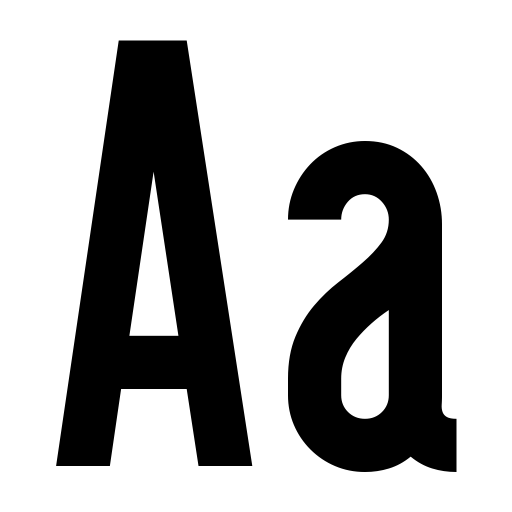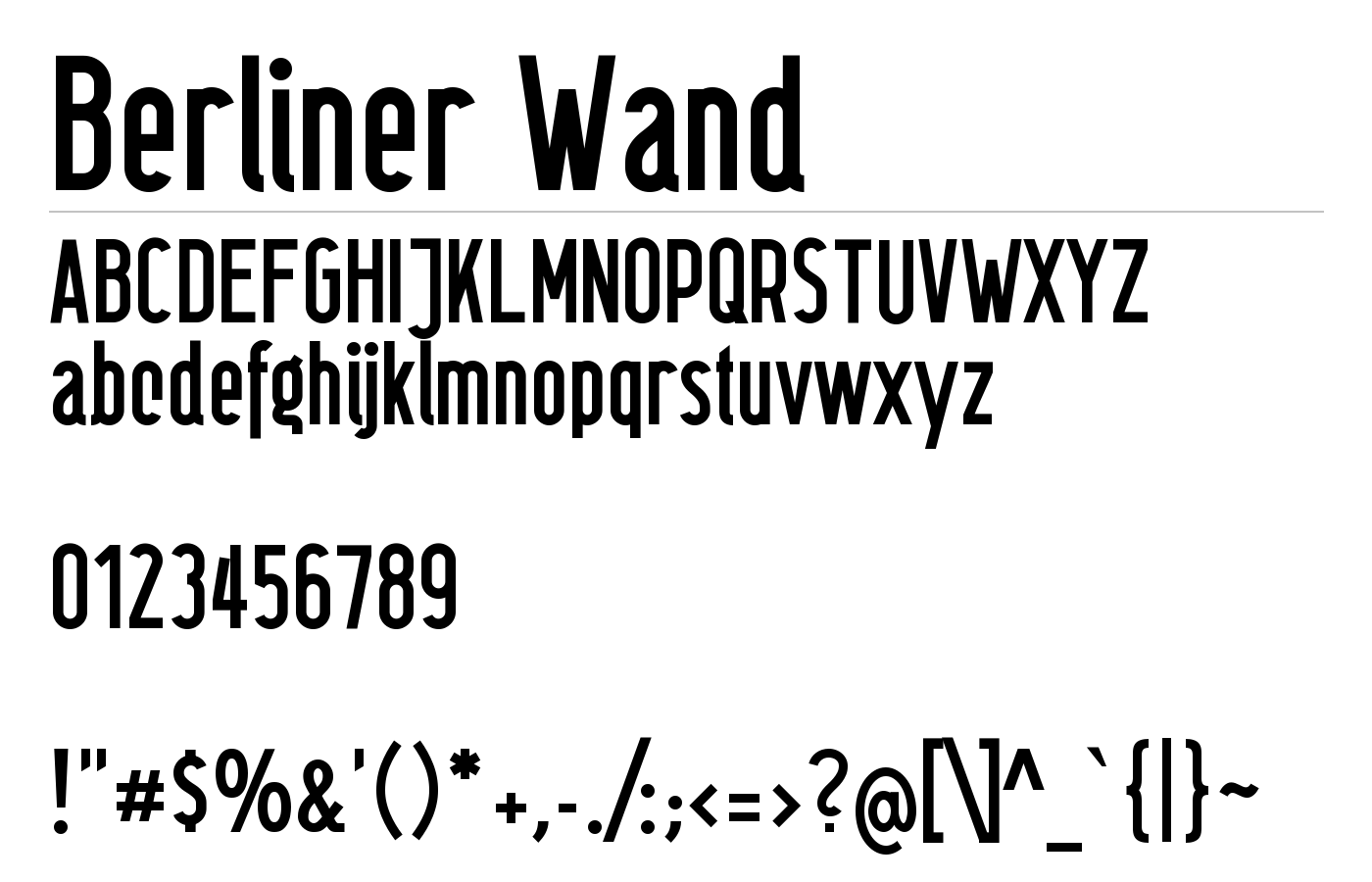
Berliner Wand is a tall, condensed sans serif font with a bold and modern look, featuring clean, geometric letterforms and consistent stroke weight. Its narrow, elongated design and sharp edges give it a strong, urban feel that works well for headlines, posters, and branding that aim to be striking and contemporary. This font suits projects needing an impactful, stylish presence with a touch of industrial character.
Berliner Wand Font
About Berliner Wand Font
| Font family | Berliner Wand Font |
| Designer | Peter Wiegel |